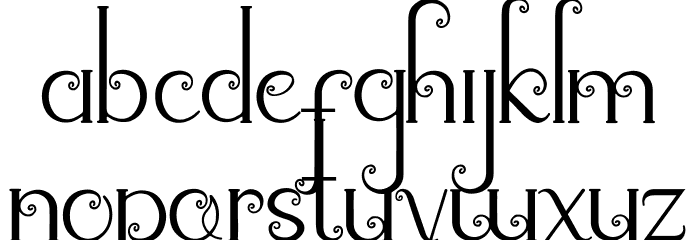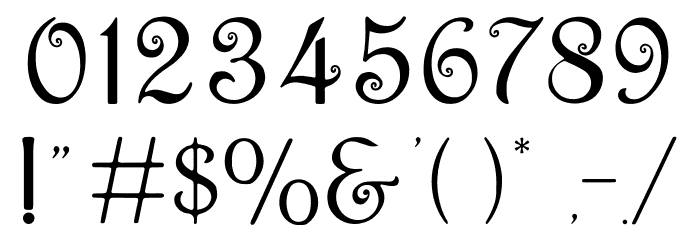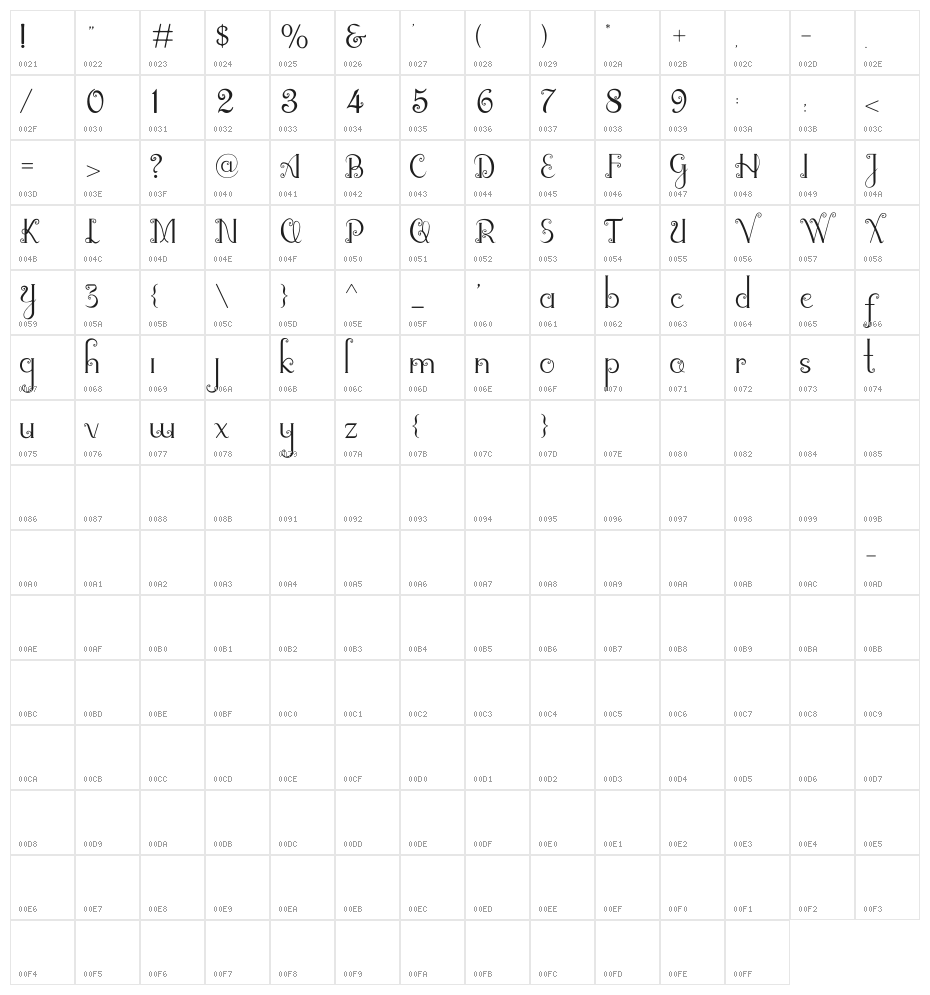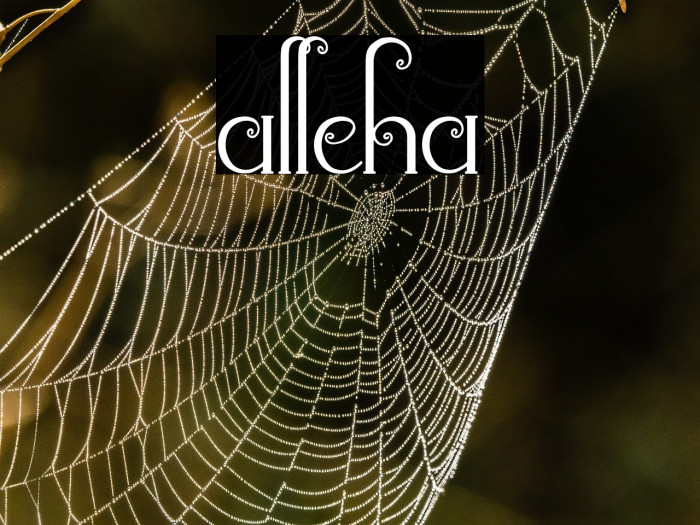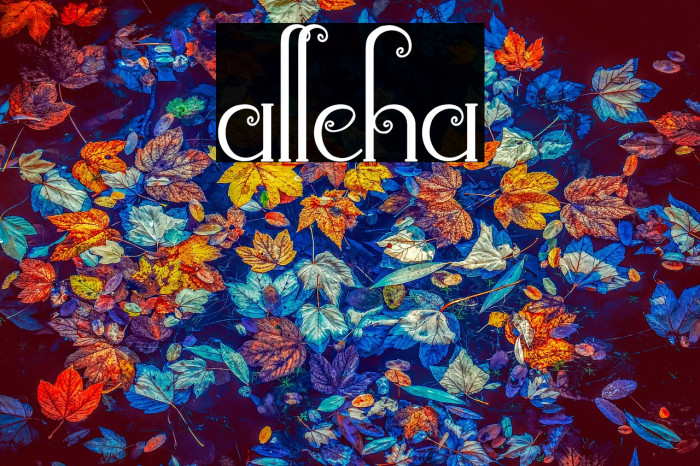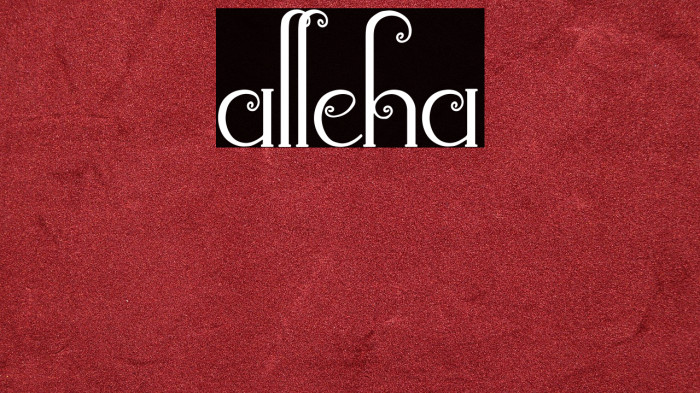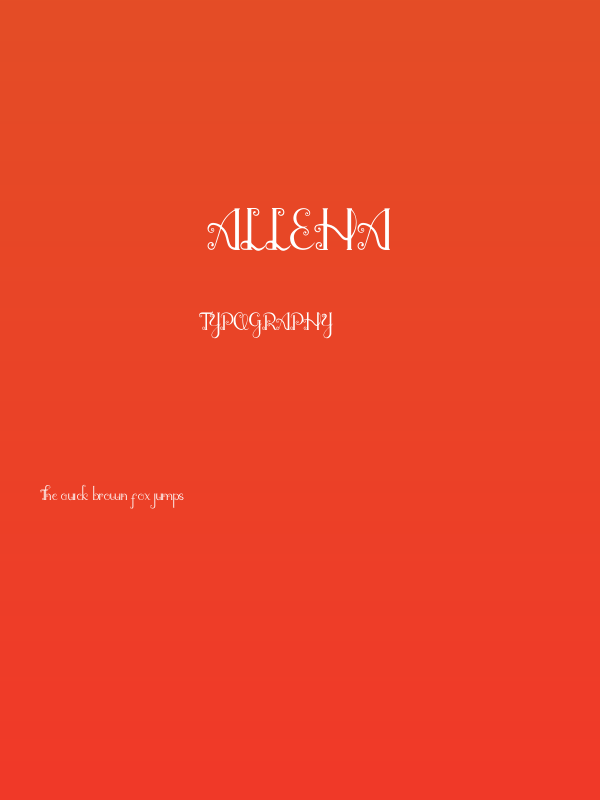
alleha Font
This font features a decorative and whimsical style with intricate curls and swirls on each character. The uppercase letters are particularly ornate, with elaborate loops and embellishments that give them a playful yet elegant appearance. The lowercase letters maintain a similar style, though slightly more subdued, allowing for readability while still retaining the font's unique charm. The numerals and special characters are consistent with this decorative theme, making the font suitable for creative and artistic projects. The overall design is both eye-catching and sophisticated, ideal for making a bold statement.
A decorative font with intricate curls and swirls, perfect for artistic projects.
- Proposed Projects: Ideal for invitations, greeting cards, branding, and decorative headlines.
- Use Case: Headlines, Logos, Invitations